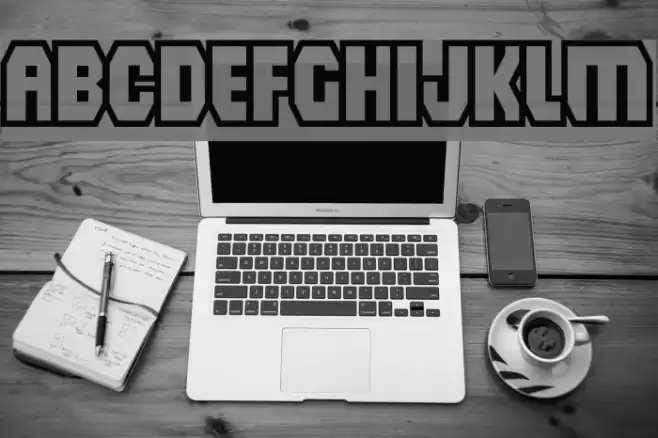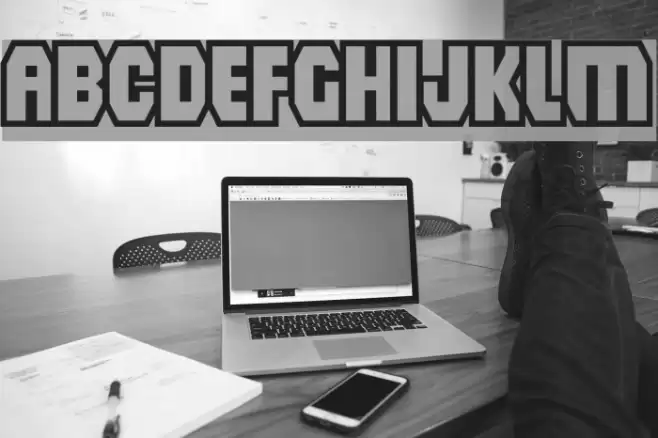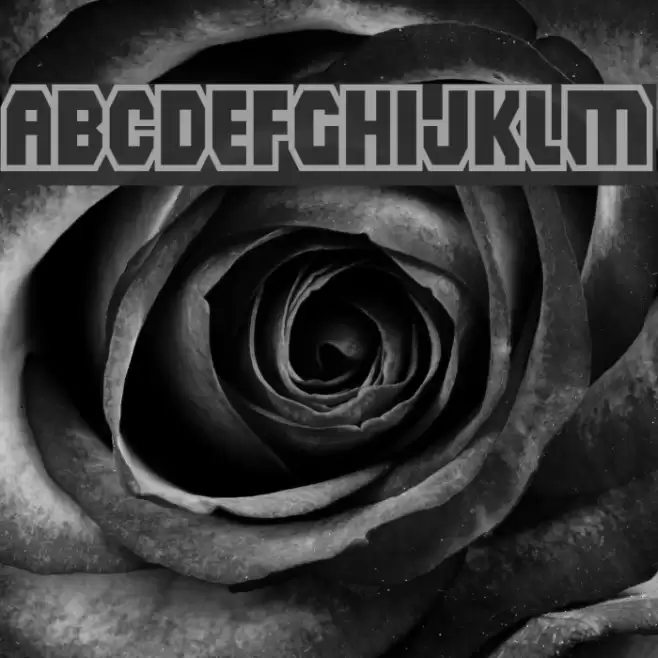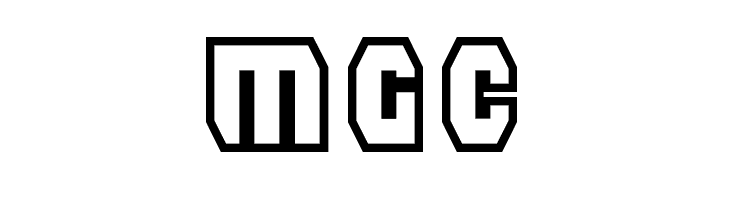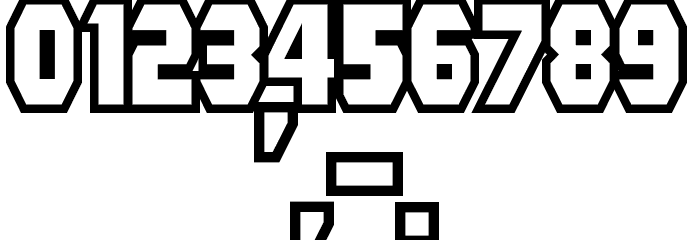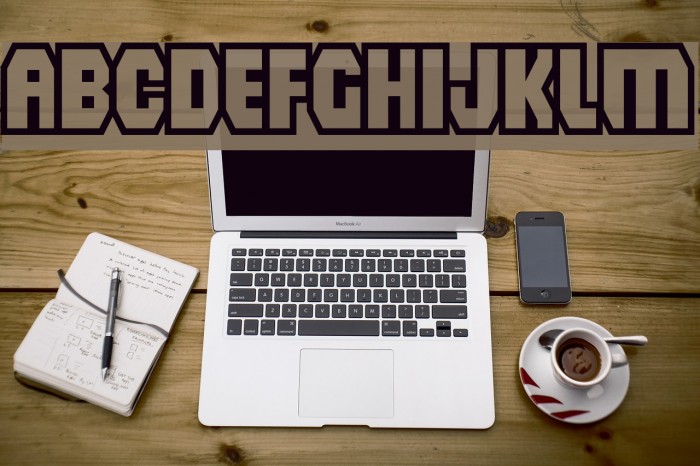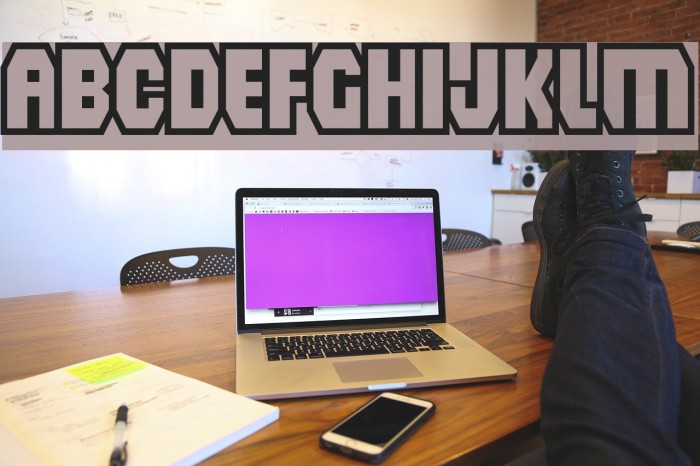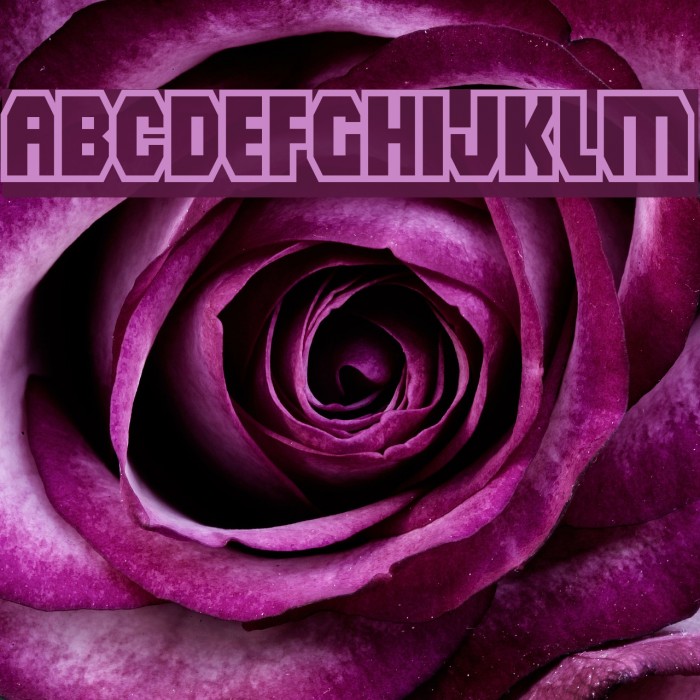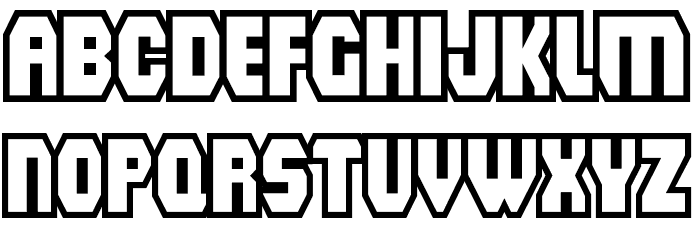
Mad Groove Clean Font
Mad Groove Clean Description
This font features a bold, geometric design with a strong, angular presence. Each character is outlined with a thick border, giving it a three-dimensional effect. The uppercase letters are uniform in height, creating a cohesive and structured appearance. The numbers and special characters maintain the same bold style, ensuring consistency across all elements. The font's design is reminiscent of retro and futuristic aesthetics, making it suitable for projects that require a standout, eye-catching typeface. Its distinct style is ideal for creating impactful headlines, posters, and branding materials.
A bold, geometric font with a three-dimensional effect and strong, angular characters from Uncategorized fonts.
- Proposed Projects: Ideal for headlines, posters, branding, and any project requiring a bold, standout typeface.
- Overall Style: Modern, Retro
- Use Case: Headlines, Posters, Branding